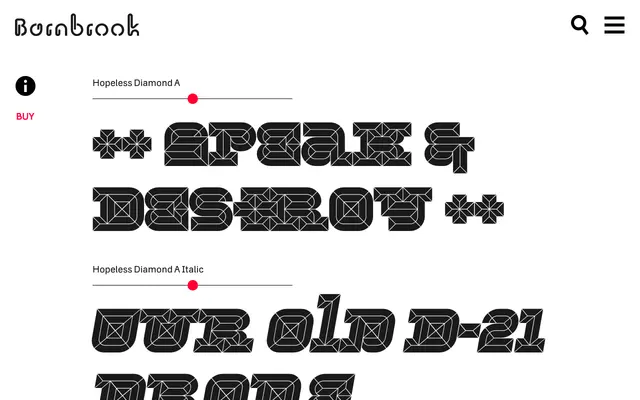
Hopeless Diamond
Three-style display family drawn from the faceted geometry of stealth aircraft and 19th century carved lettering, with italics and alternate character sets throughout.
The letterforms take their dimensional, angular structure from the B-2 Spirit and F-117 Nighthawk stealth aircraft, reinterpreted through the tradition of 19th century carved type. Three styles each include an italic and an alternate character set, offering a wide range of combinable permutations. The name comes from the sardonic nickname test pilots gave an early F-117 prototype, whose radical departure from aerodynamic convention they called the Hopeless Diamond.
A display typeface with angular, faceted letterforms derived from stealth aircraft geometry and 19th century carved lettering, placing it firmly in the display category with a geometric and dimensional character.